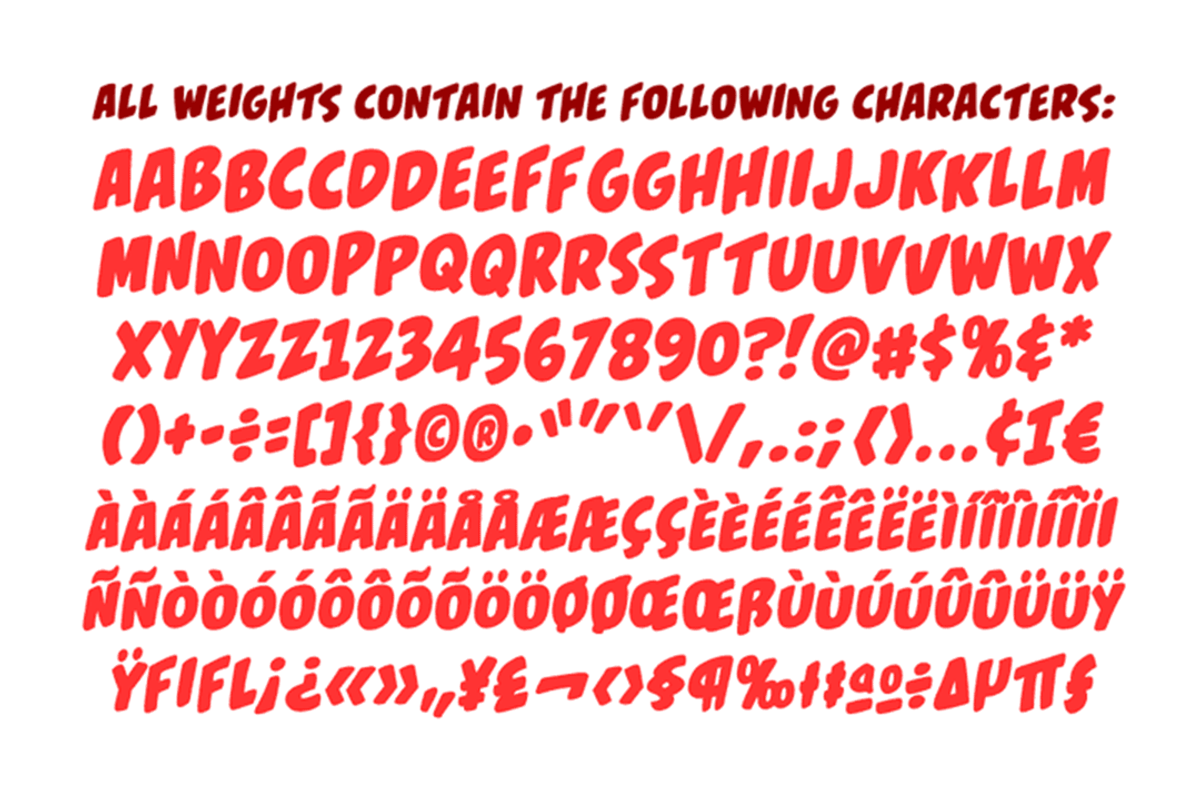
Shiver
Shiver by Comicraft Fonts is a font selected for branding, posters, packaging, typography.
- Any which way, Comicraft now has the font for you to effectively convey the way your characters are feeling to comic book readers everywhere
Why Shiver is worth a look
Shiver by Comicraft Fonts fits naturally into Branding, posters, packaging, typography.